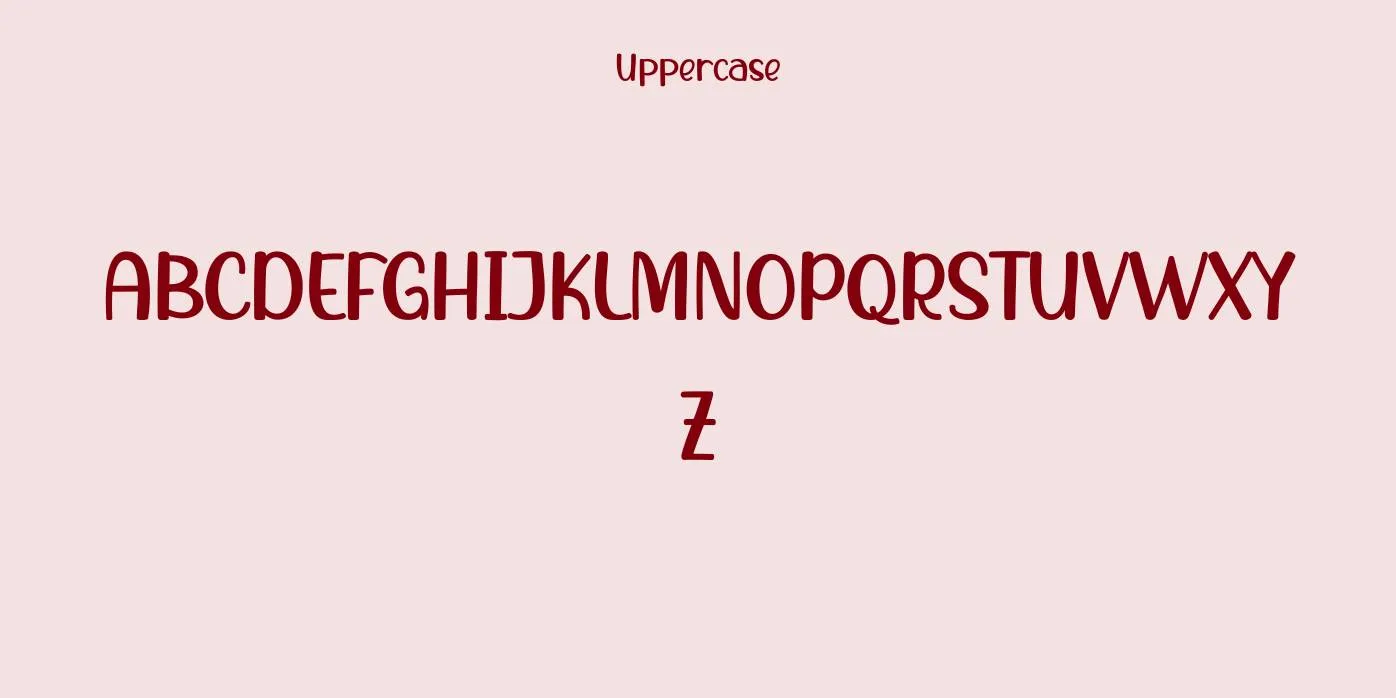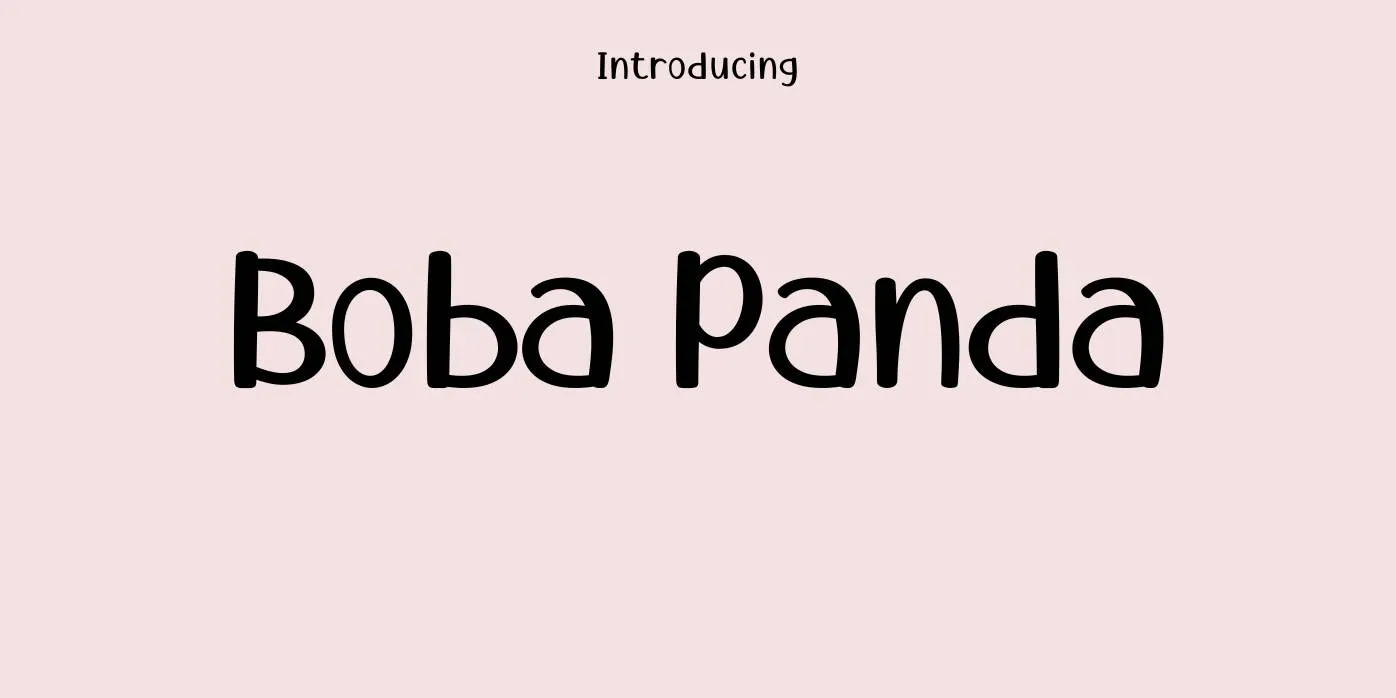
Boba Panda Font
Let’s talk about another amazing typeface Boba Panda Font. This stunning font is designed by 7NType Studios. You can make so many attractive designs by using this font. This stunning font was initially released in 2018.
An online generator tool supports this font which you can copy and paste your simple design into a stylish look even without downloading the font. All processes can be done online. It has 320 characters, 285 glyphs, and 2048 units per E, Unicode supported by this font is 2.0 and BMP only. Both the weight and the width of the font are medium (normal).
You can also use this font for pairing with other fonts like angle cookie font it can give a more attractive look to your projects. Usage You can make many different projects by using this font as this font has different features like small letters, capital letters, symbols, punctuations, and special characters. You can make attractive headlines for different projects especially related to cartoons. It is a good font for making different types of Logos and Titles.
You can use it for making movie titles related to cartoons. It can be used to design themed decorations for birthday parties. This font is suitable for both print and digital media. You can use it for making brochures, banners, posters, and flyers.
What is a similar font to the Boba Panda font? You can find many similar fonts with this font but the most similar font is angle cookie font. It gives a very attractive result to your projects. Is Booba Panda font web-safe?
Yes, you can make so many different amazing designs on a website by using this font. It is a websafe font.